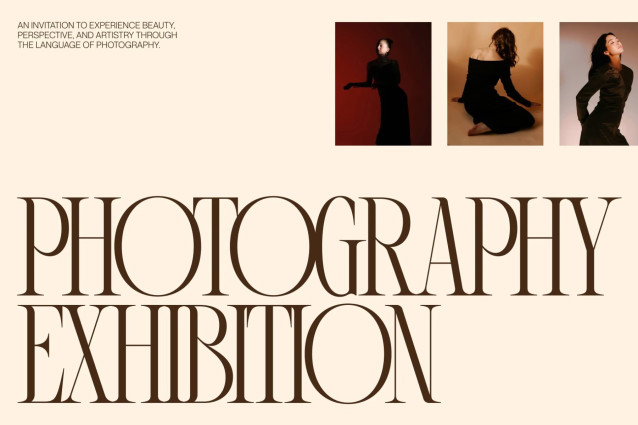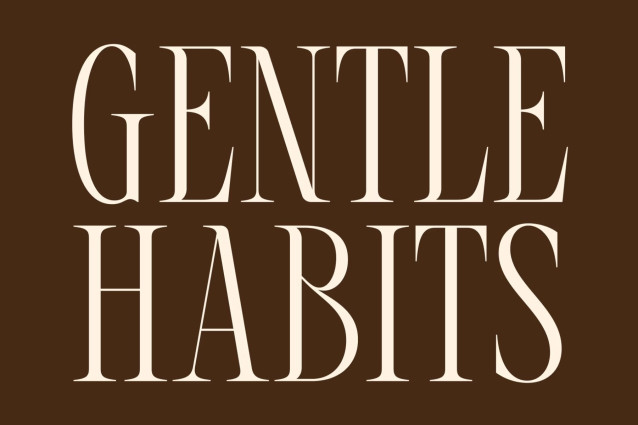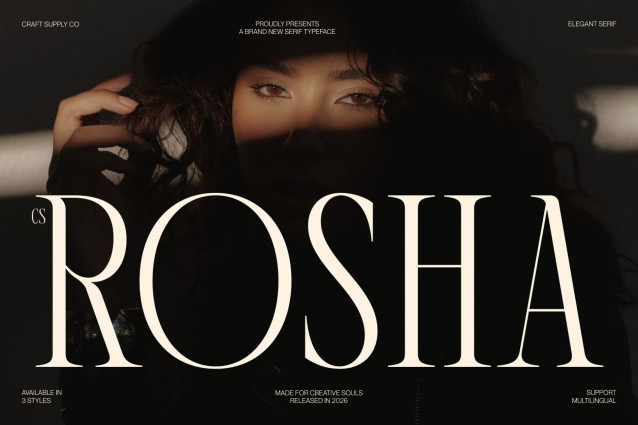
CS Rosha – Elegant Serif Font
CS Rosha – Elegant Serif Font: Where Refined Sophistication Meets Timeless Luxury
Sleek Lines with Sophisticated Details
This is an elegant serif font crafted for design projects that demand a professional, luxurious, and refined appearance. Its sleek lines, graceful serif details, and carefully balanced proportions create a polished visual identity that feels both timeless and contemporary. Every character is designed to communicate confidence, elegance, and exceptional craftsmanship.
Clean Structure with Controlled Contrast
Built with a clean structure and controlled contrast, this font offers outstanding readability while maintaining a premium aesthetic. The balanced relationship between thick and thin strokes creates a harmonious rhythm, allowing the font to appear sophisticated without becoming overly decorative. This refined construction makes it suitable for both striking headlines and elegant body text.